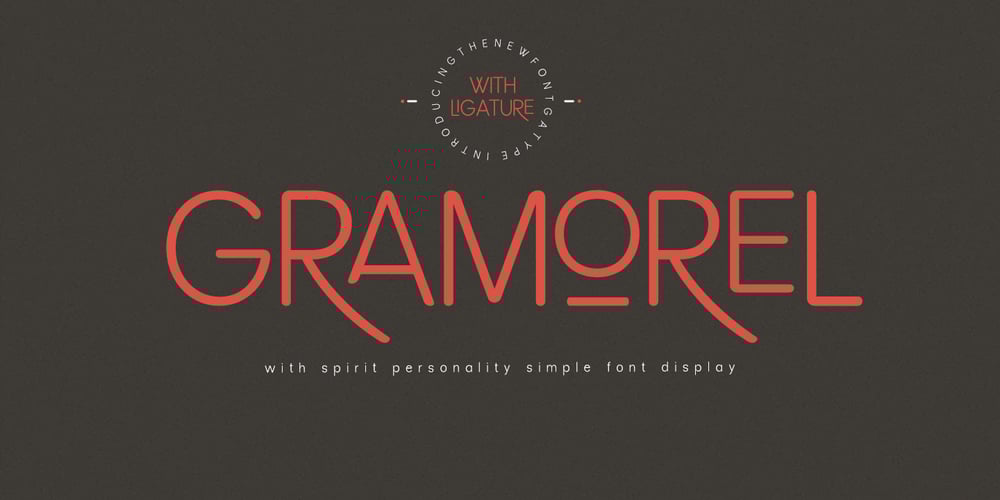
Gramorel Font Family was designed by khaidir and published by Gatype. Gramorel contains 1 styles and family package options. Best collection of display fonts, don’t miss it:The Gramorel font is vintage elegant, these typefaces are truly made for one another. They work very well to give you the perfect design label you have designed. It’s perfect for Logo, Advertising, Apparel Design, Label, Signage, Etc.Don’t hesitate to contact me if you need anything.Enjoy!